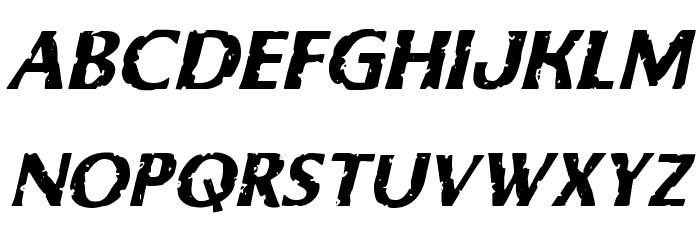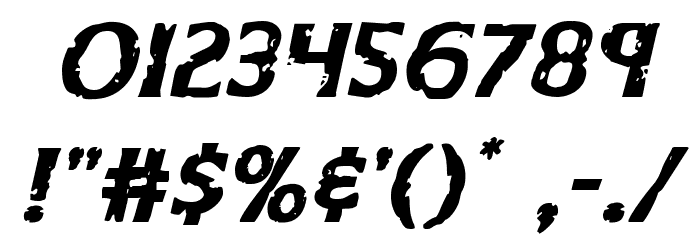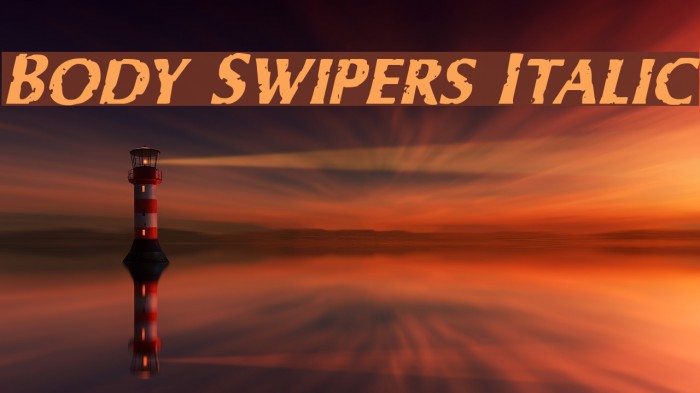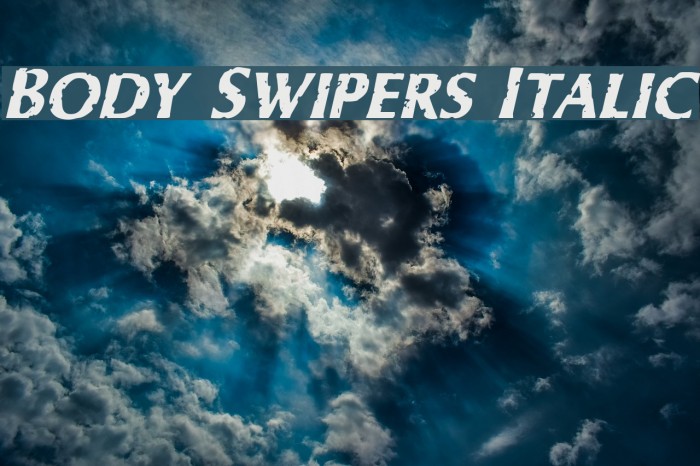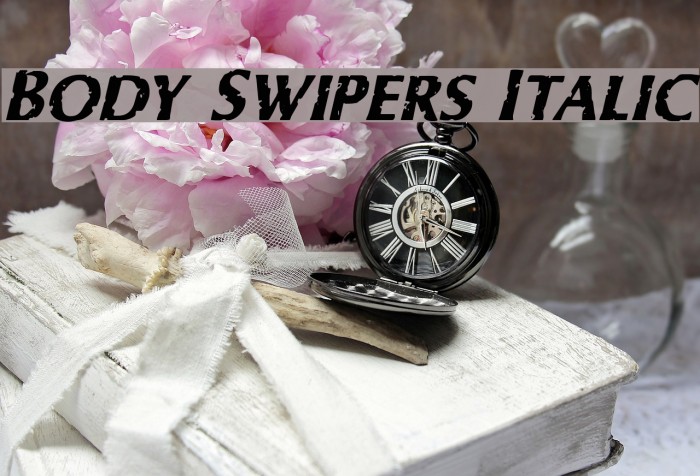
Body Swipers Italic Font
This font features a bold, italicized style with a distressed, grunge texture that gives it a rugged and edgy appearance. The characters are slanted, adding a dynamic and energetic feel. The uppercase and lowercase letters maintain consistent styling, with a noticeable roughness around the edges, enhancing its raw and unpolished look. The numerals and special characters follow the same design, ensuring uniformity across all glyphs. This font's unique texture and slant make it stand out, ideal for projects that require a bold statement.
A bold, italicized font with a distressed, grunge texture.
- Proposed Projects: Ideal for posters, album covers, branding for edgy products, or any design needing a bold, gritty aesthetic.